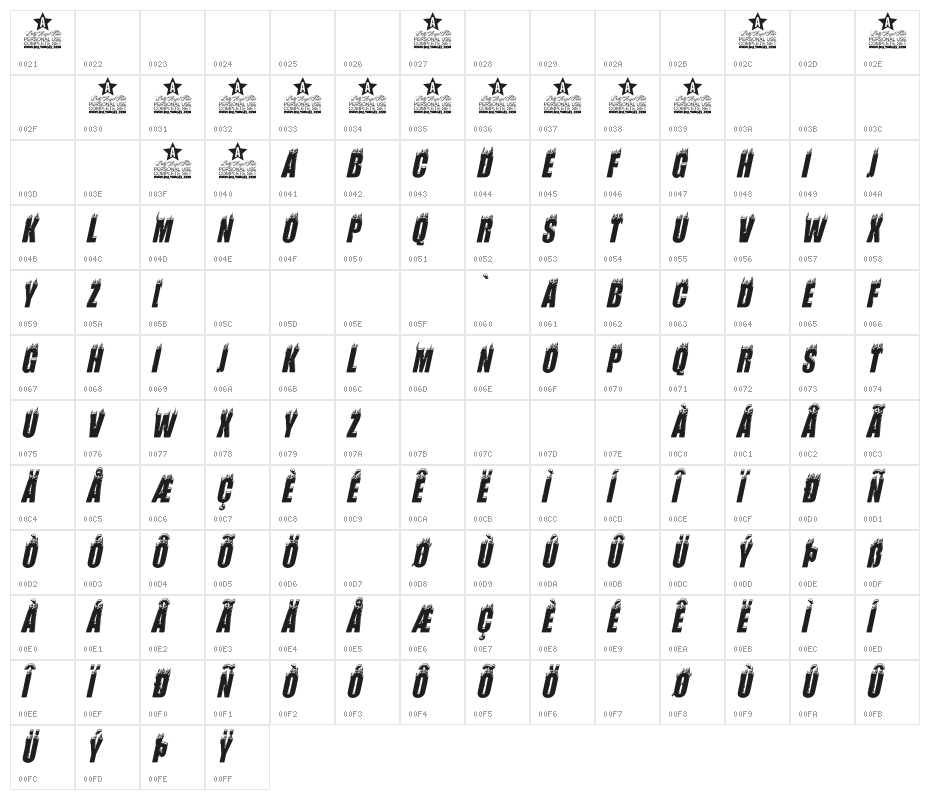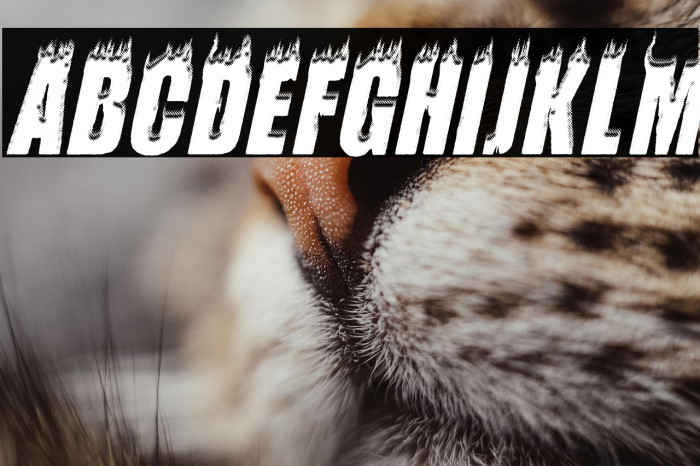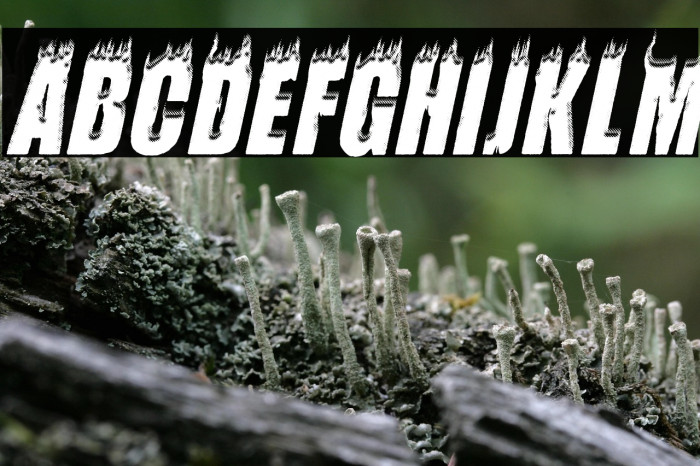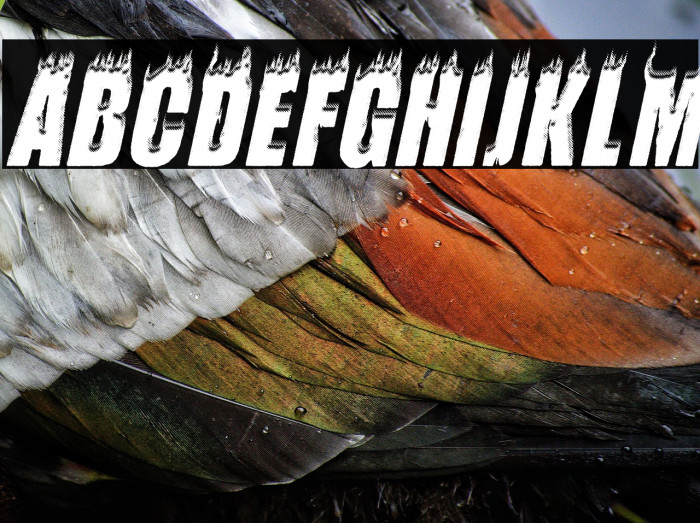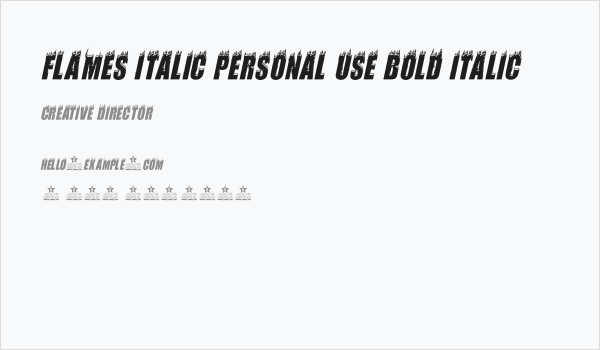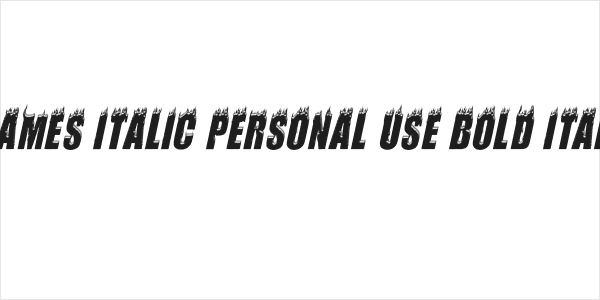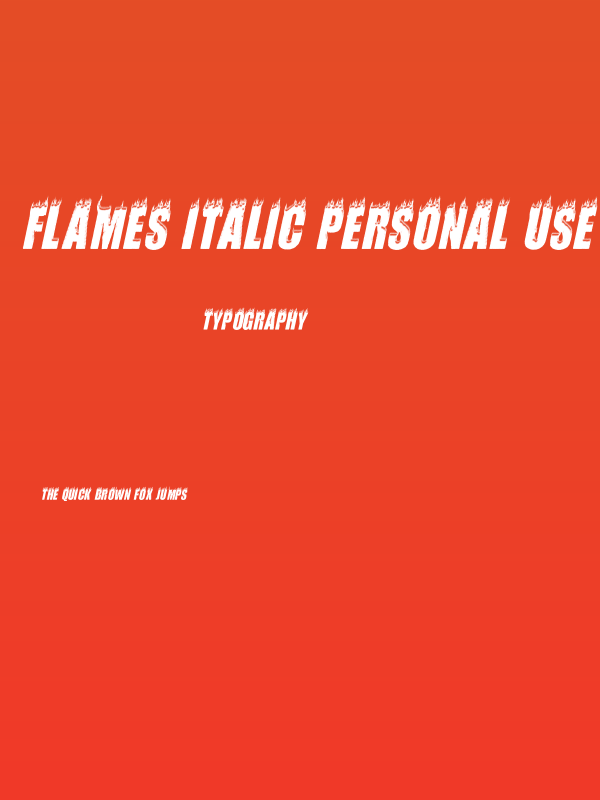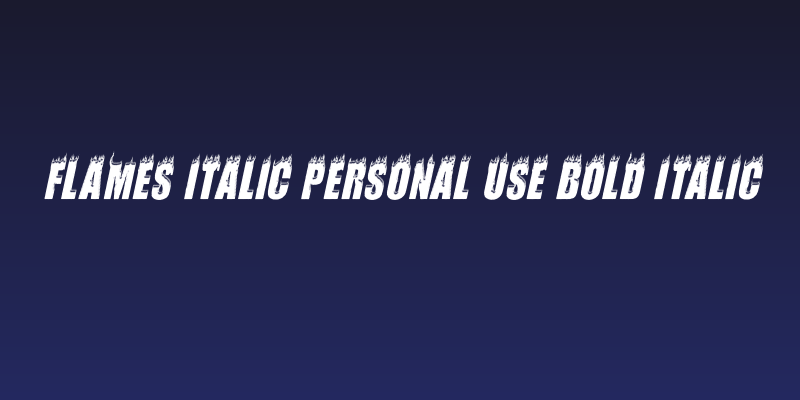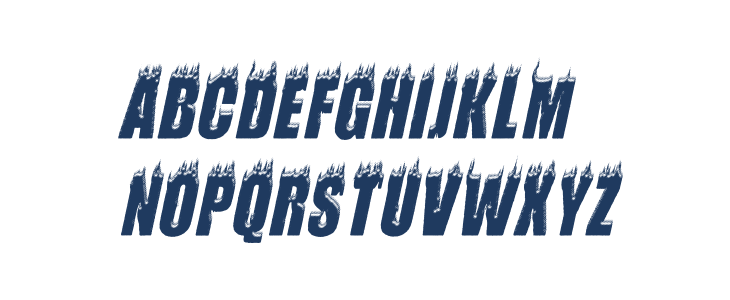
FLAMES ITALIC PERSONAL USE Bold Italic Font
FLAMES ITALIC PERSONAL USE Bold Italic Description
This font features a bold and dynamic style with an italic slant, giving it a sense of motion and energy. The letters are adorned with flame-like accents at the top, adding a dramatic and fiery effect. This decorative style is eye-catching and ideal for making a strong visual impact. The font maintains a consistent thickness throughout, ensuring readability while still being visually striking. The character spacing is tight, which enhances the compact and intense appearance of the text.
| Proposed Projects | Ideal for projects that require a bold statement, such as event posters, music album covers, or branding for extreme sports. |